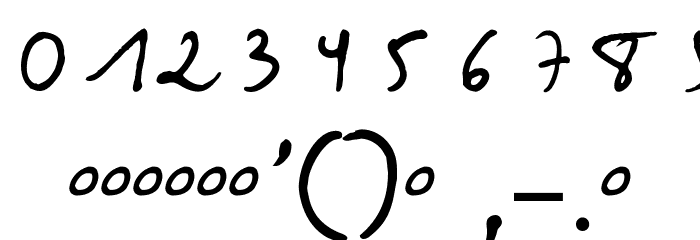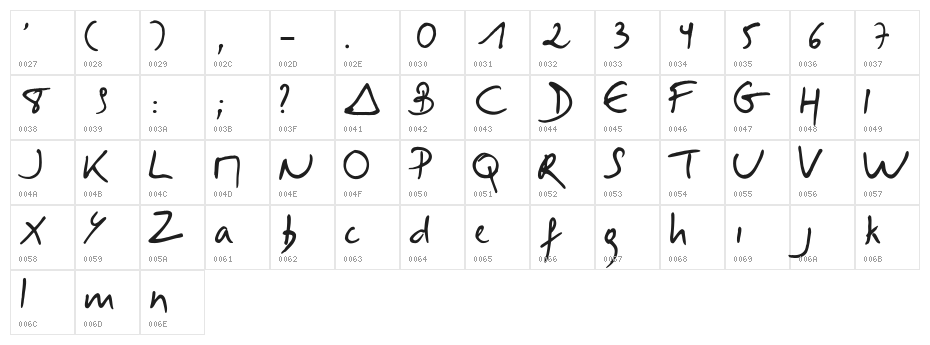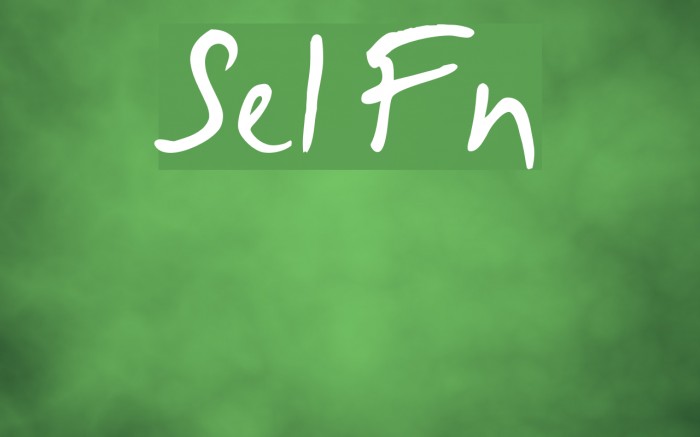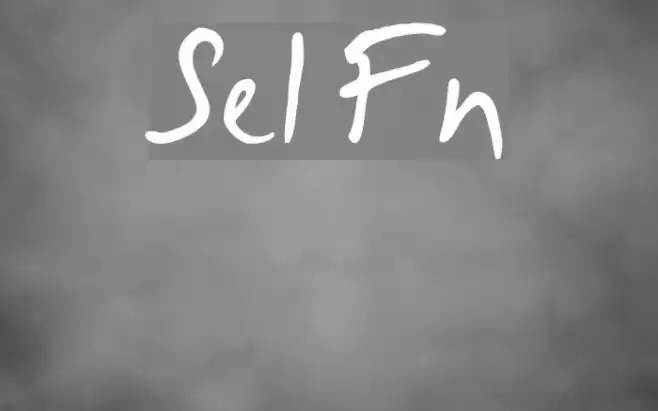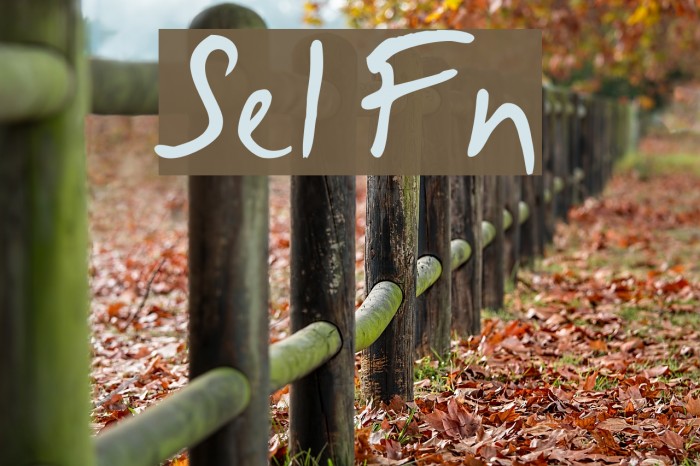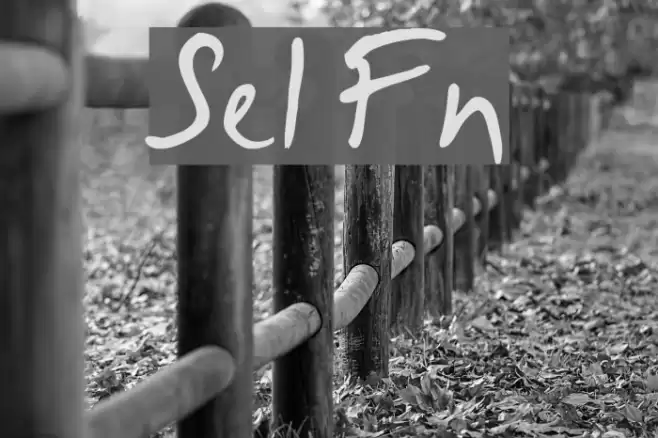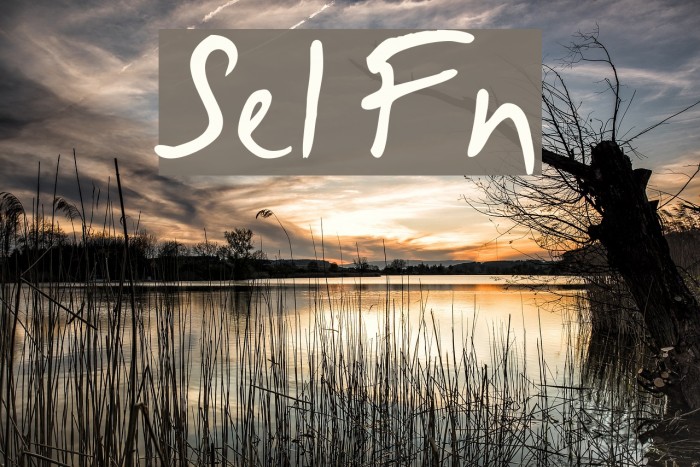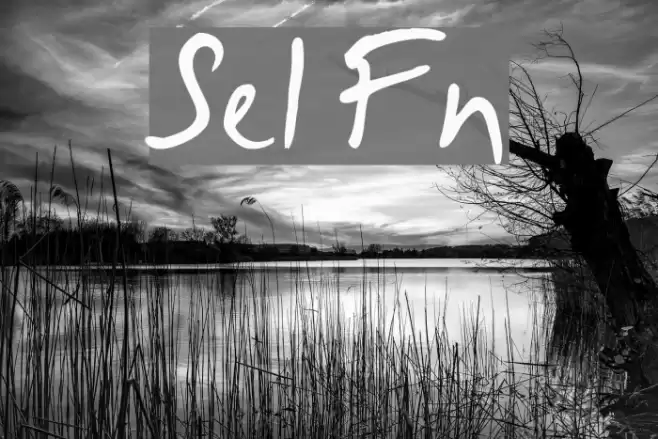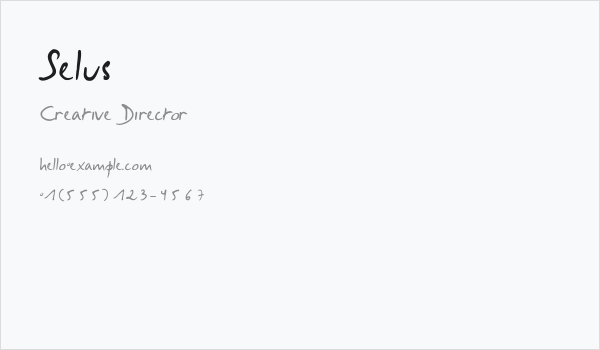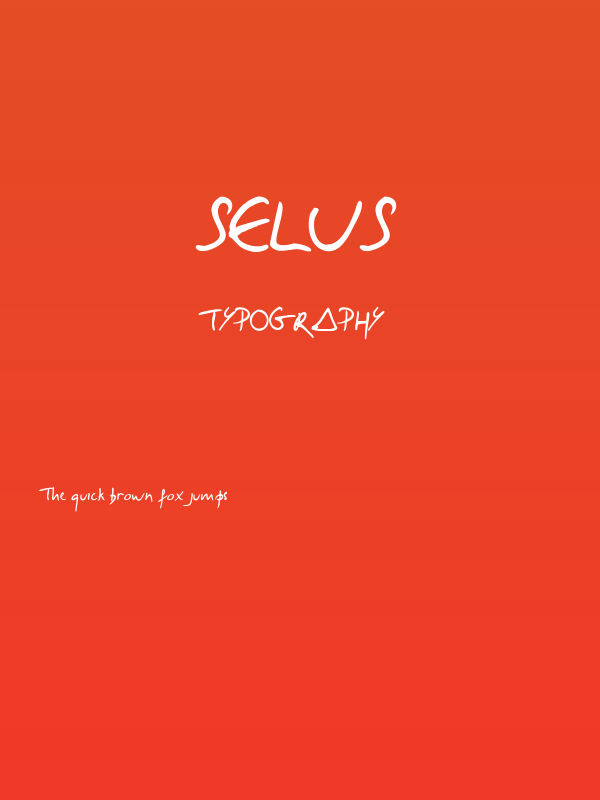
Selus Font
Selus Description
This font exhibits a playful and informal handwritten style, characterized by its fluid and dynamic strokes. The uppercase letters maintain a consistent height with a slight slant, giving them a casual appearance. The lowercase letters are more varied in height, adding to the font's whimsical nature. The numbers follow the same playful style, with each digit having a unique flair. Special characters are integrated seamlessly, maintaining the overall aesthetic. The strokes vary in thickness, providing a medium contrast that enhances readability while preserving the font's artistic quality.
| Overall Style | Casual, Artistic |
| Use Case | Logos, Invitations, Artistic Posters |
| Proposed Projects | Ideal for creative projects such as greeting cards, invitations, personal branding, and artistic posters. |